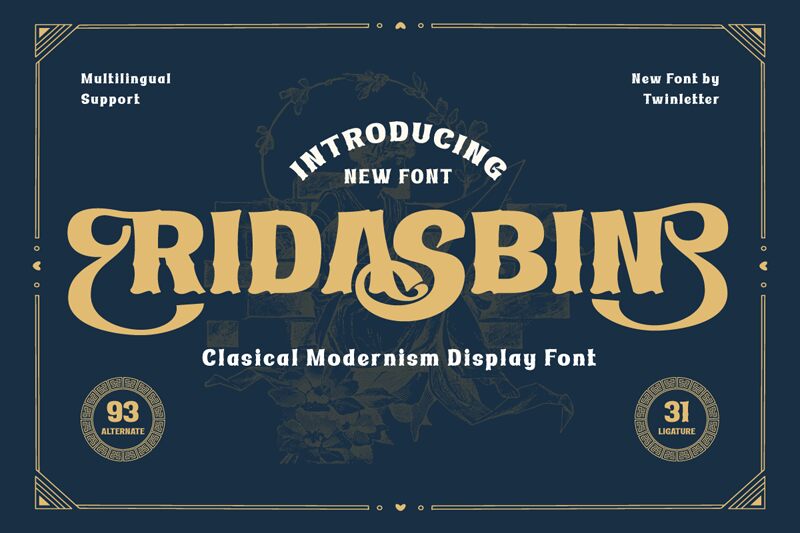
Ridasbin font family by twinletter consists of 2 font styles that blend retro influences with a modern twist. Perfectly suited for creating an impactful presence, it adds an artistic flair to your designs with its intricate detailing. The typeface is decorative, dynamic, and elegant with classical influences. This font family will add a complex yet highly readable and interesting feel to your designs. It also combines perfectly with modern, minimal fonts.
Whether the designer is looking to create a memorable print for their portfolio, invitations for a special event, or labels and packaging designs, Ridasbin would be a special touch to all of these. Also, branding and rebranding projects, infographics, brochures, magazines, menus, and web designs can all benefit from this serif typeface.